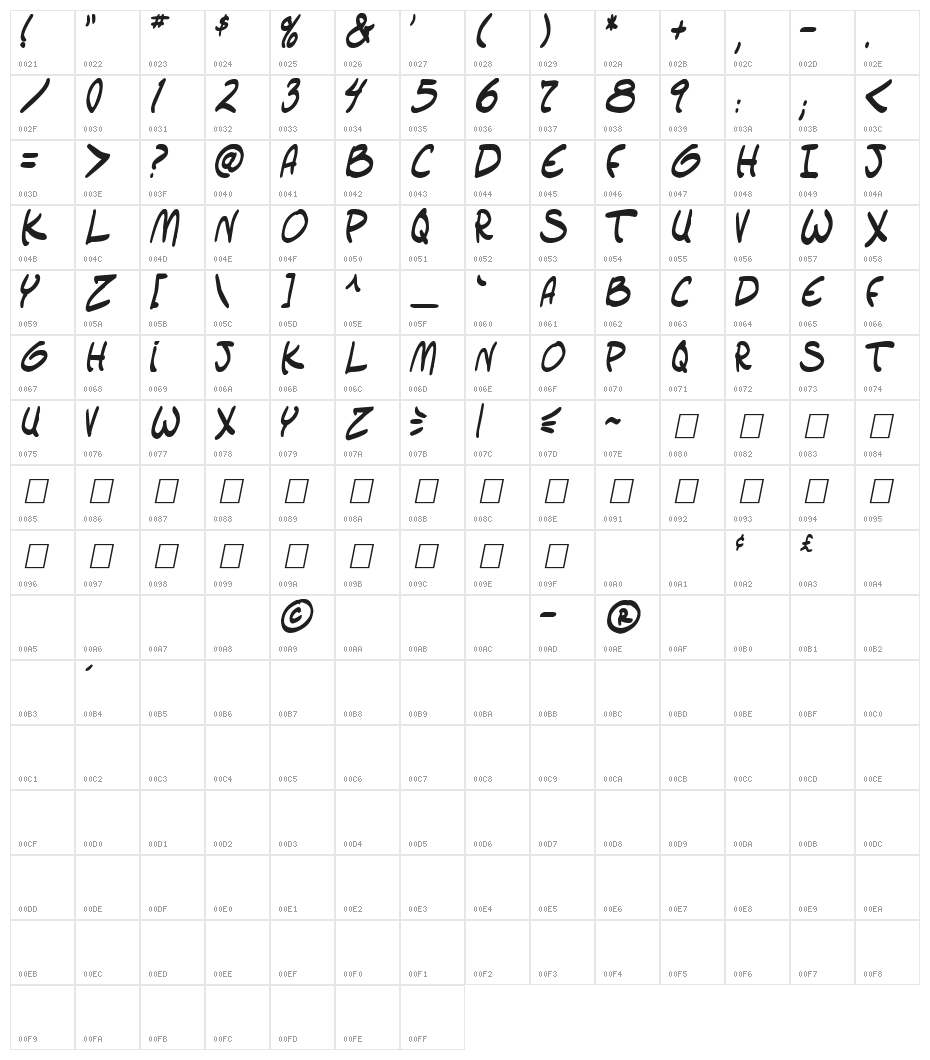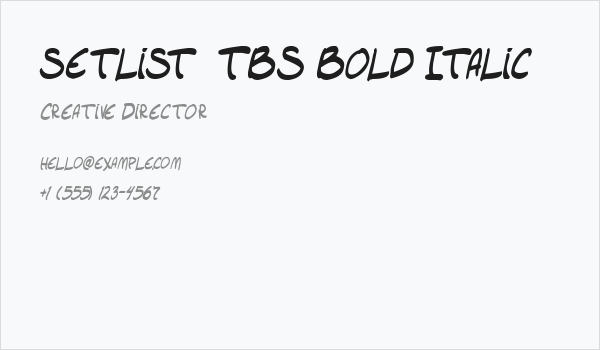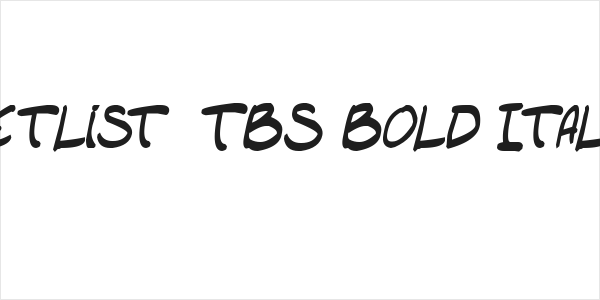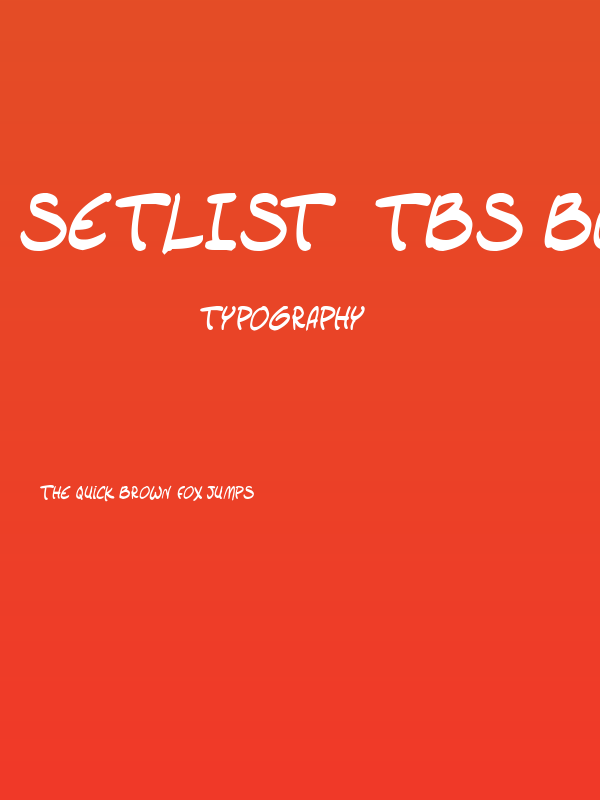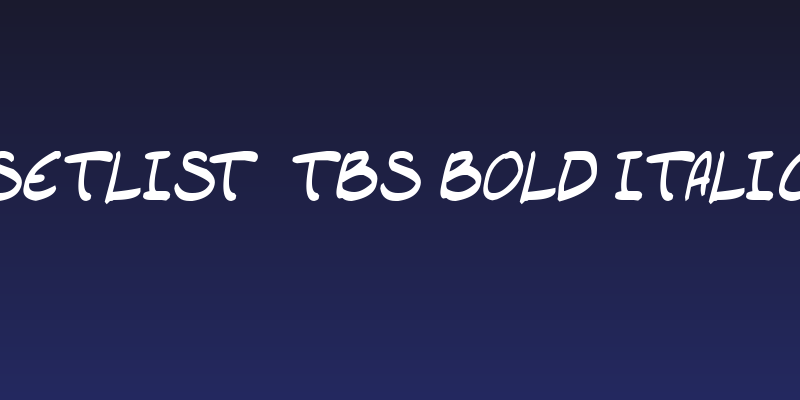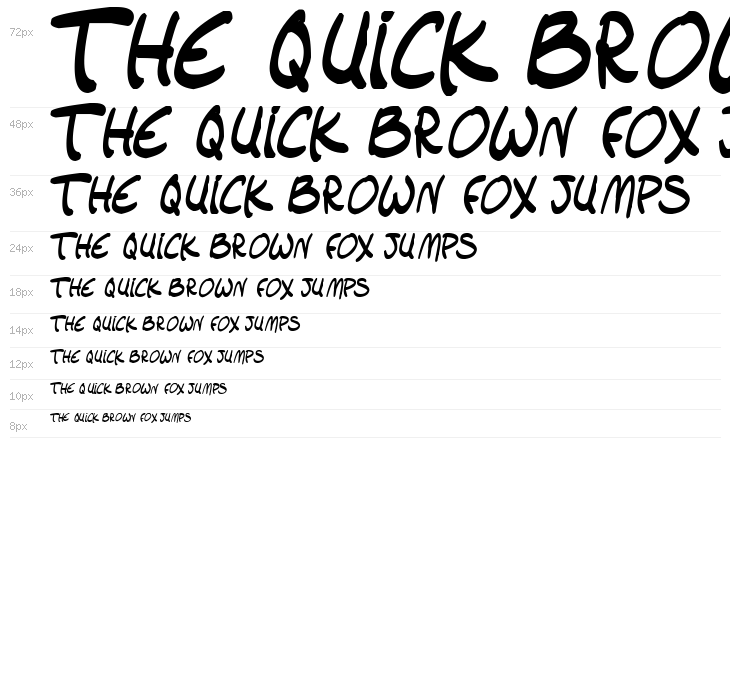
setlist TBS Bold Italic Font
setlist TBS Bold Italic Description
This font features a bold and italicized style with a handwritten, dynamic appearance. The characters are slightly slanted, adding a sense of motion and fluidity. The strokes are thick and consistent, providing a strong visual impact. The uppercase and lowercase letters maintain a cohesive style, with rounded edges and a playful yet assertive demeanor. Numbers and special characters follow the same bold and italicized theme, ensuring uniformity across all elements. The overall look is modern and expressive, suitable for projects that require a personal touch.
| Proposed Projects | Ideal for branding, posters, social media graphics, and any project needing a bold, personal touch. |